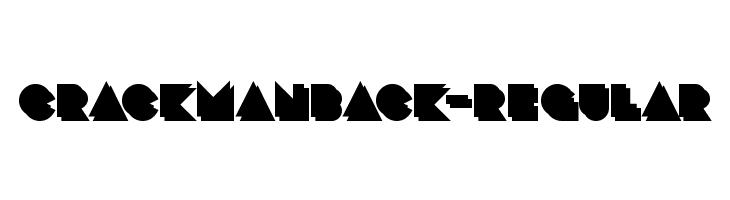
• ColorBasic-Regular
A pixelated, retro-style font with a blocky, digital appearance.
• CrackManBack-Regular
A bold, geometric font with sharp angles and a modern style.
• CrackManFront-Regular
A bold, playful font with geometric shapes and cut-out elements.
• DegrassiBack-Regular
A bold, graffiti-inspired font with sharp, angular edges.
• DegrassiFront-Regular
A bold, angular font with a geometric style, ideal for striking headlines.
• EdenMills-BoldItalic
A bold, italicized font with a modern, dynamic style and medium contrast.
• EngebrechtreEx-Bold
A bold, modern font with clean lines and a strong presence.
• EngebrechtreRg-Regular
A modern, sleek font with tall, narrow characters and a cohesive design.
• EngebrechtreEx-Italic
A sleek, modern italic font with streamlined, slightly condensed characters.
• EngebrechtreEx-BoldItalic
A bold, italicized font with a dynamic and modern style.